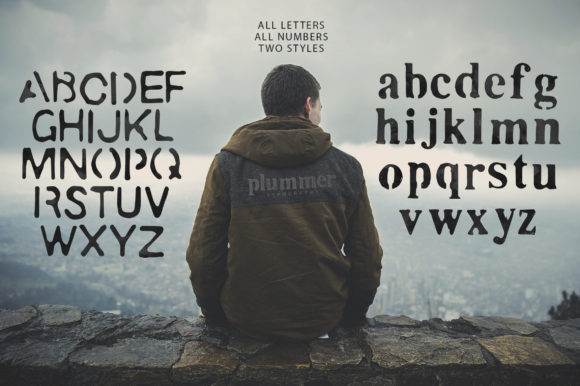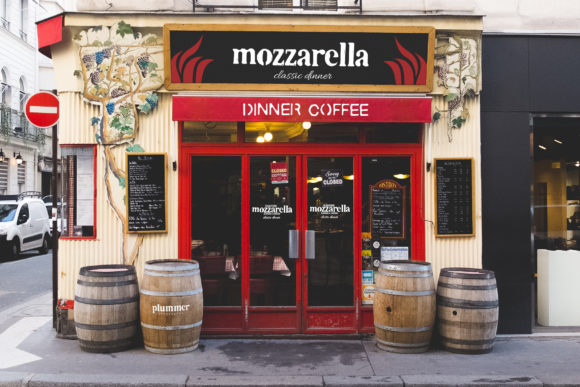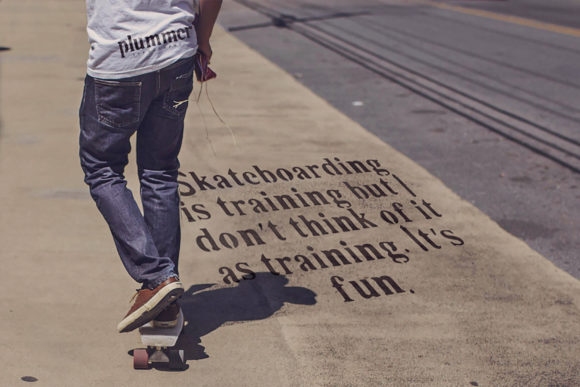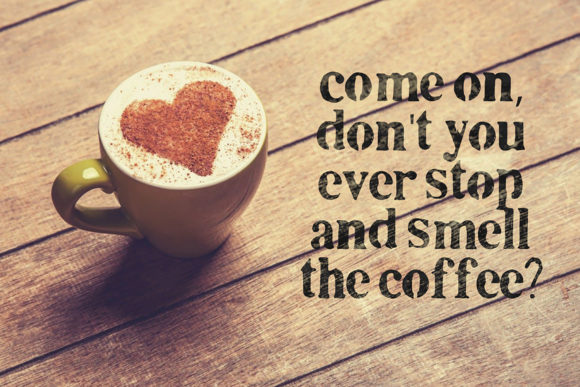
Introduction to Plummer Font
The Plummer is a handmade font.
It was inspired by stencil uppercaseโs and is perfect for retro designs .
Key Features of Plummer Font